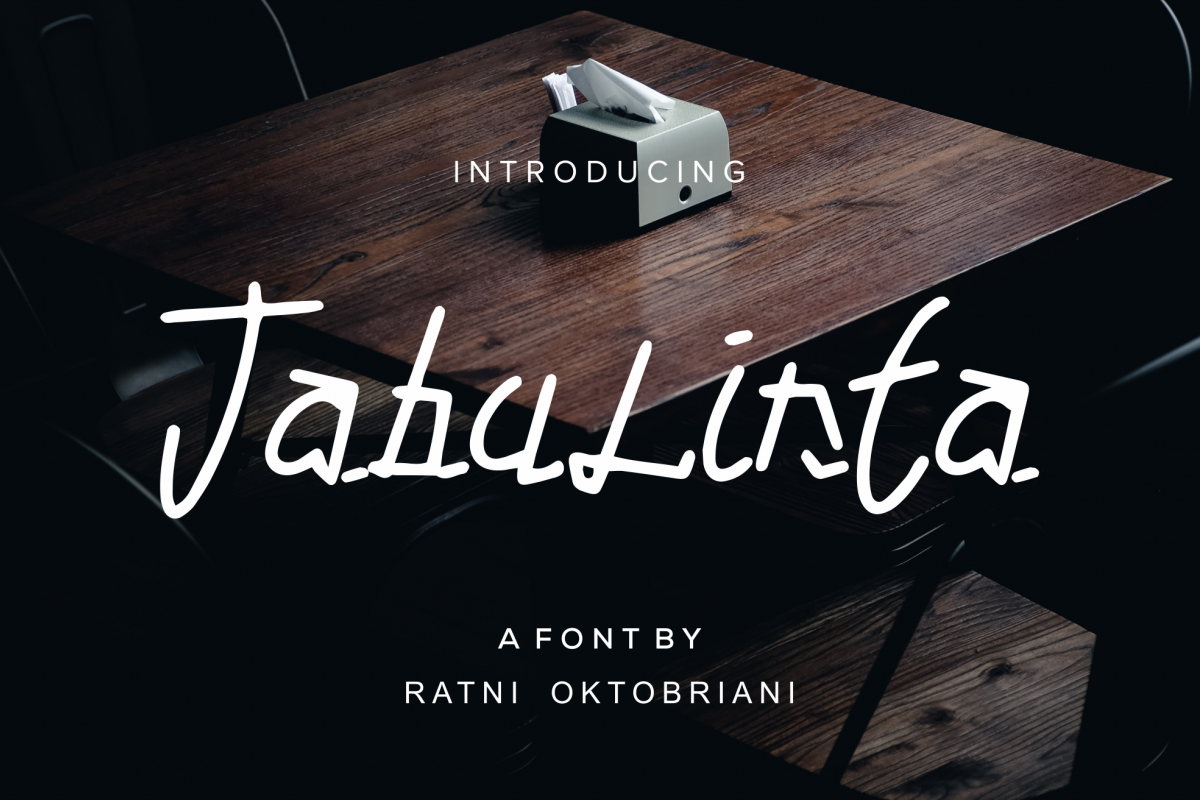
Tabulinta - A Uniquel Font
Tabulinta - A Uniquel Font made by a Ratni Okt. It fun and playfull, Good for any business that wants to look fun and unique preposition!